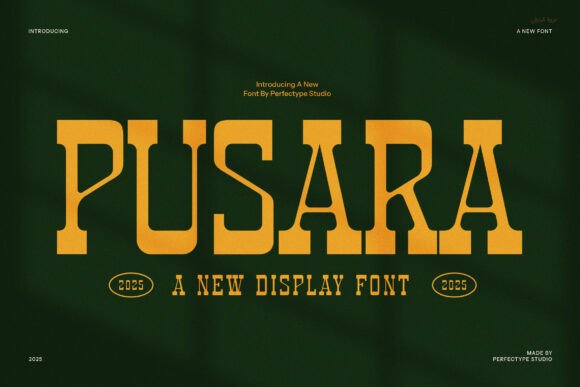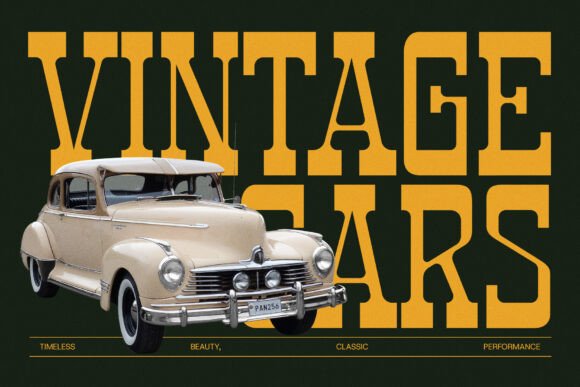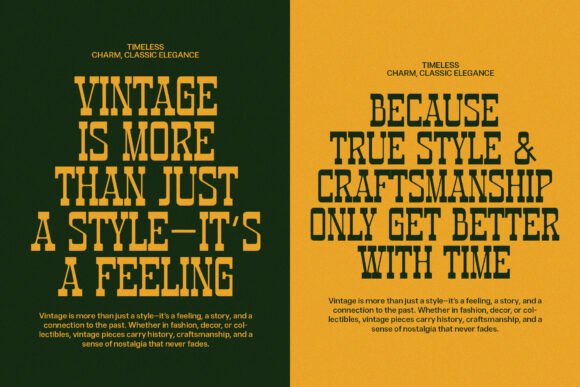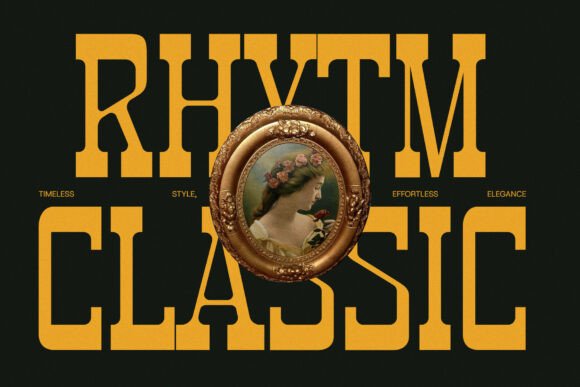
Pusara Font: Bold Slab Serif for Vintage Logo Design
About the Pusara Font
Step up your design game with Pusara Font, a font that exudes confidence and style. Introducing *Pusara Slab Serif Font*, a bold and distinctive typeface that perfectly balances vintage charm with contemporary design sensibilities. With its unique combination of thin lines on the body and thick, rounded slab serifs that resemble large, boxy ends, *Pusara* brings a touch of nostalgia and elegance to any creative project. This font is designed to make an impact, whether you’re creating logos, branding, websites, product packaging, or vintage-inspired advertisements.
The core feature of *Pusara* is its standout slab serifs. These thick, block-like ends give the font a sturdy, authoritative presence, while the slender body creates a sophisticated, refined appearance. The slab serifs’ rounded corners evoke a vintage feel, recalling classic typography from bygone eras, while the thin body lines add a modern touch, making *Pusara* a versatile choice for a range of design styles.
*Pusara* is particularly suited for projects that seek a vintage aesthetic while maintaining contemporary clarity and legibility. Its distinctive slab serifs and thin body lines make it ideal for logos, branding, and packaging in industries like food, fashion, and lifestyle. Whether designing a retro-inspired restaurant logo, an elegant magazine spread, or an eye-catching advertisement, *Pusara* ensures your message is both visually compelling and easy to read. Its bold, sturdy serifs make it perfect for designs that demand attention, while its thin lines preserve an air of sophistication.
This font’s unique design also makes it a fantastic choice for vintage-themed projects, offering that perfect blend of old-school character with modern appeal. *Pusara*’s versatility allows it to shine across various platforms, from websites to printed materials, creating a cohesive, timeless look that feels both fresh and familiar.
*Pusara Slab Serif Font* is not just about its appearance; it’s a tool for creating memorable and impactful designs. Whether used for high-end boutique branding, food packaging, or editorial layouts, this font adds a premium, authentic feel to your work. Its boldness ensures that it stands out, while its refined design ensures it remains elegant and timeless.
Bring a sense of vintage-inspired sophistication to your next creative project with *Pusara Slab Serif Font*. Its striking design and versatile functionality make it the perfect choice for designers looking to make a statement with their typography.
Pusara Font Usage Examples
Pusara Font Example